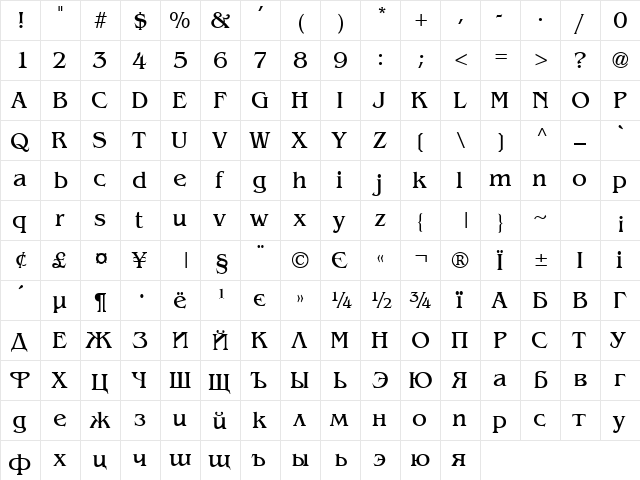
Bangkok Cyr Regular
Design Context for Bangkok Cyr Typeface
Bangkok Cyr offers clean, dependable letterforms without strong stylistic allegiance, making it a practical choice for designers who need flexibility.